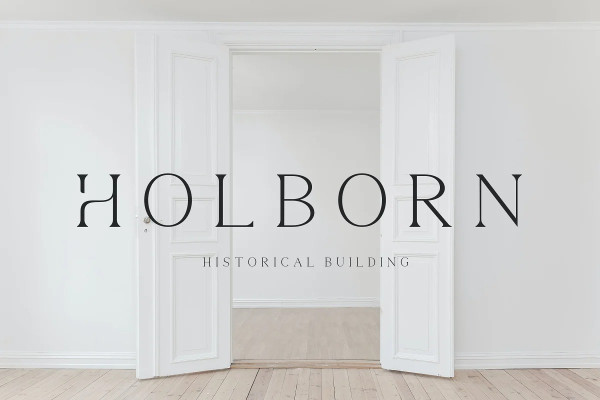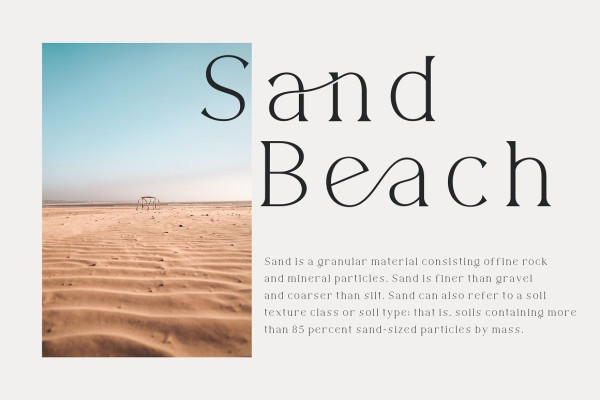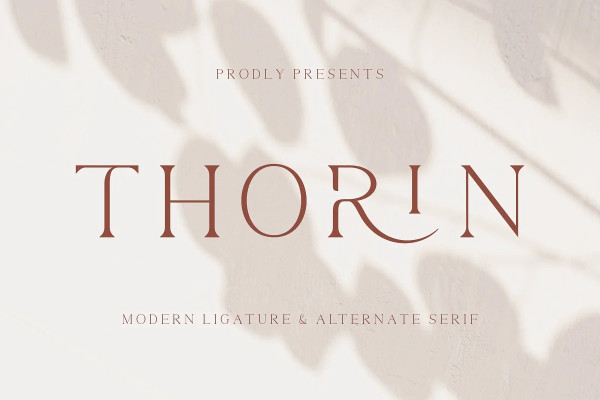
Thorin Font
Thorin Font – Modern Serif Font, branding font, boho font, canva font, procreate font, cricut font, logo font, sans serif our latest creation, modern serif with various alternates and ligatures, multilingual support, an updated blend of bohemian style, suitable for branding, business, logos, magazines, and others